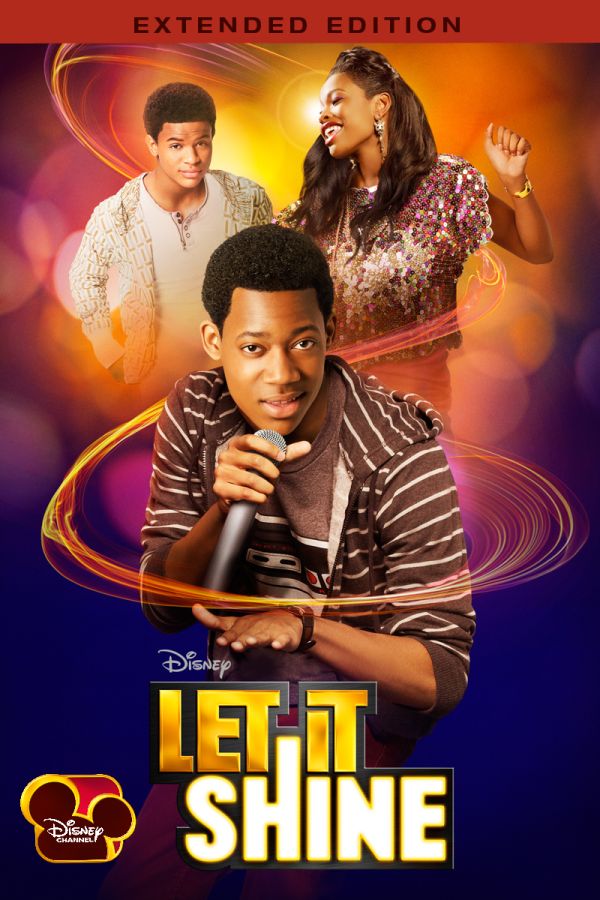
Let It Shine Font
Fonts in UseLet It Shine is a 2012 musical film from Disney Channel about a talented but shy rapper who ghostwrites for his best friend's music career, but ultimately finds his voice and becomes a star.
The movie poster title font is probably Helvetica Inserat Regular, a 1957 variant of Helvetica designed for advertising. More details about the font are available here.